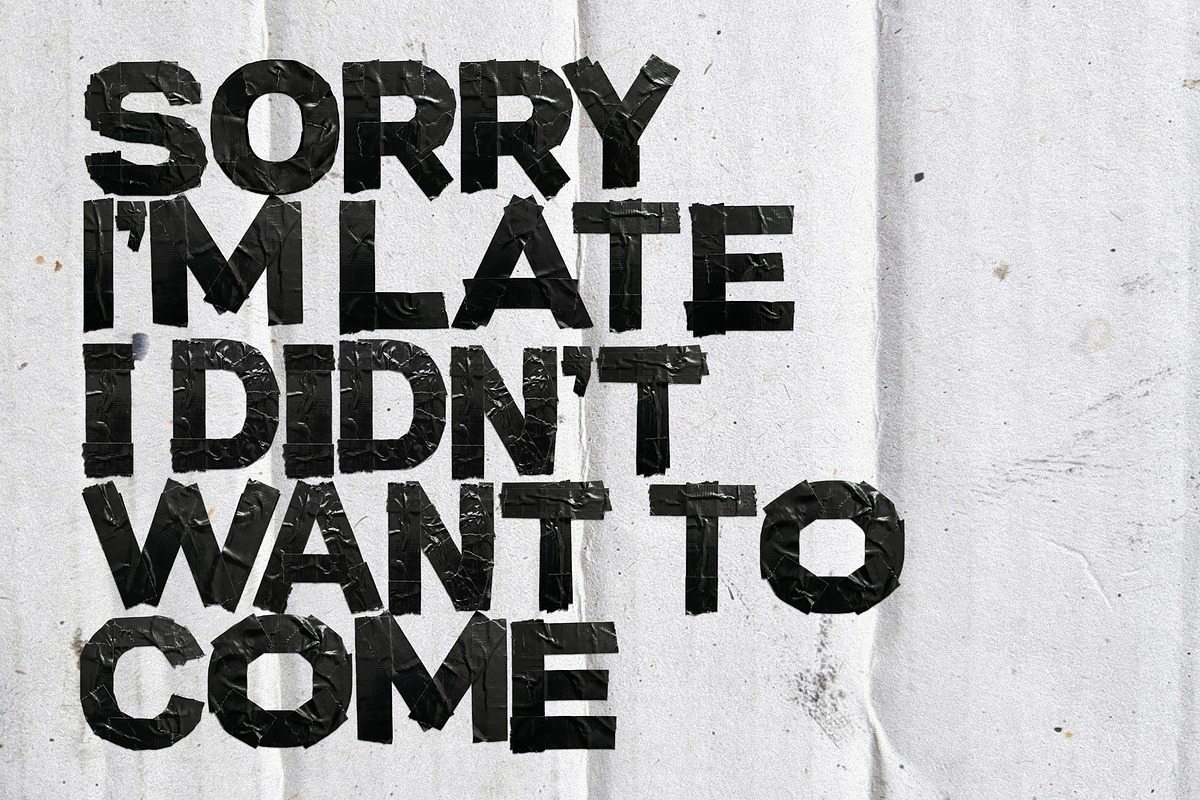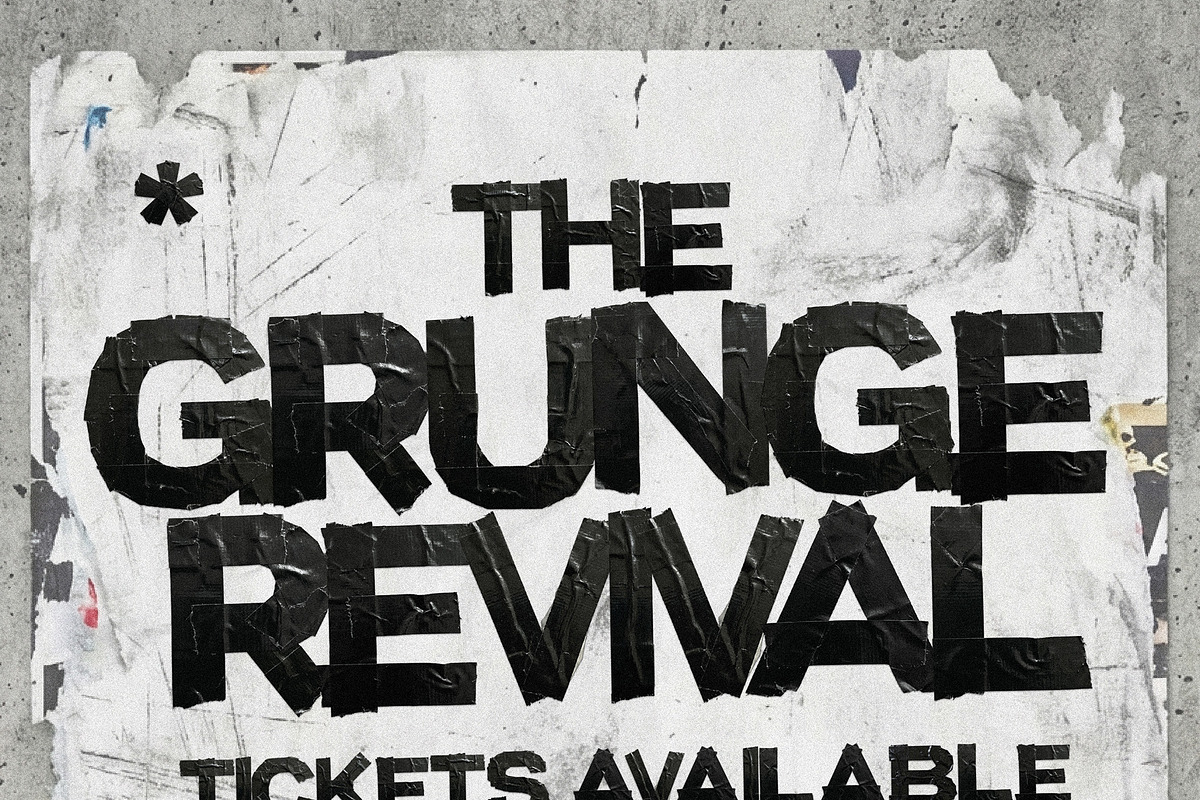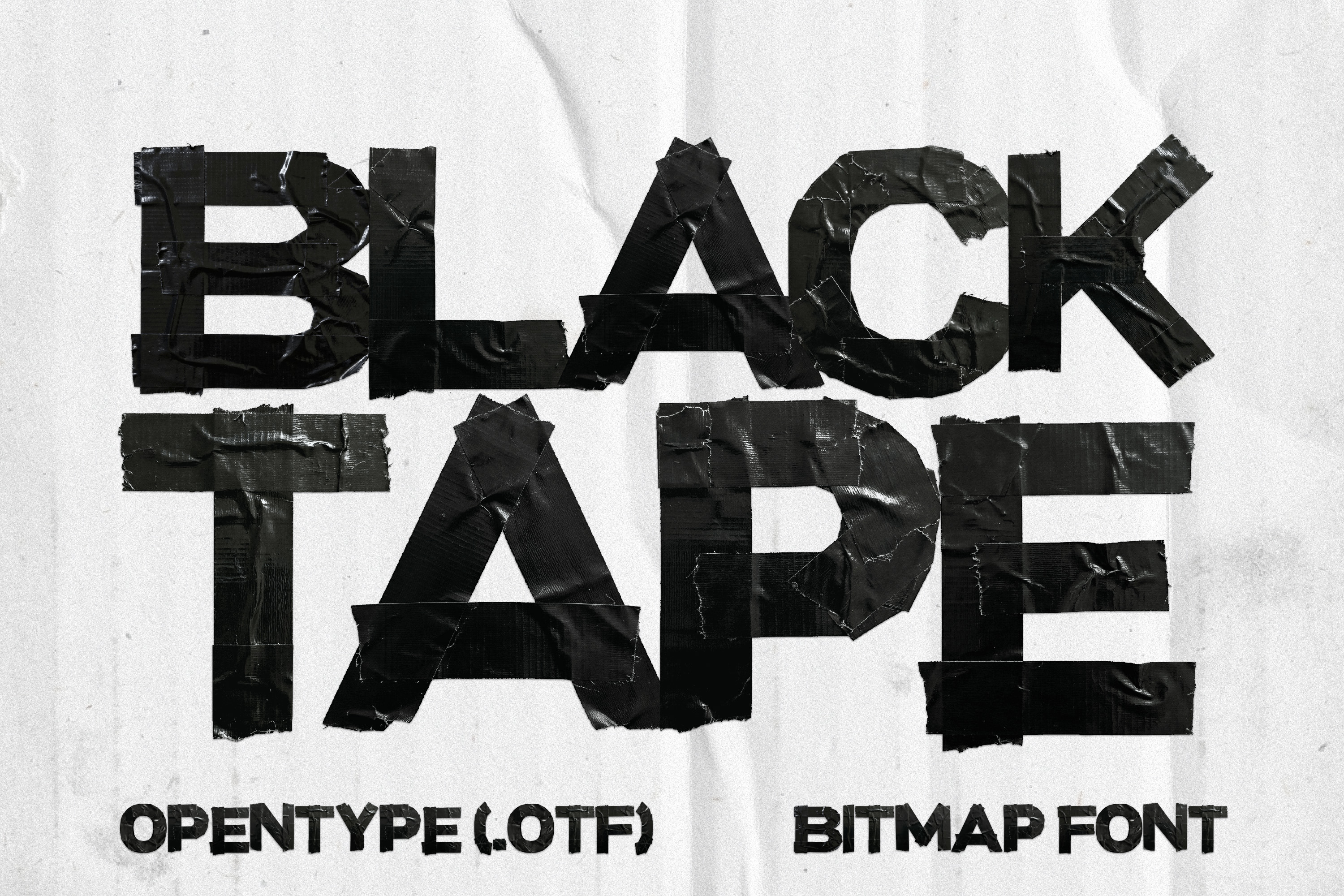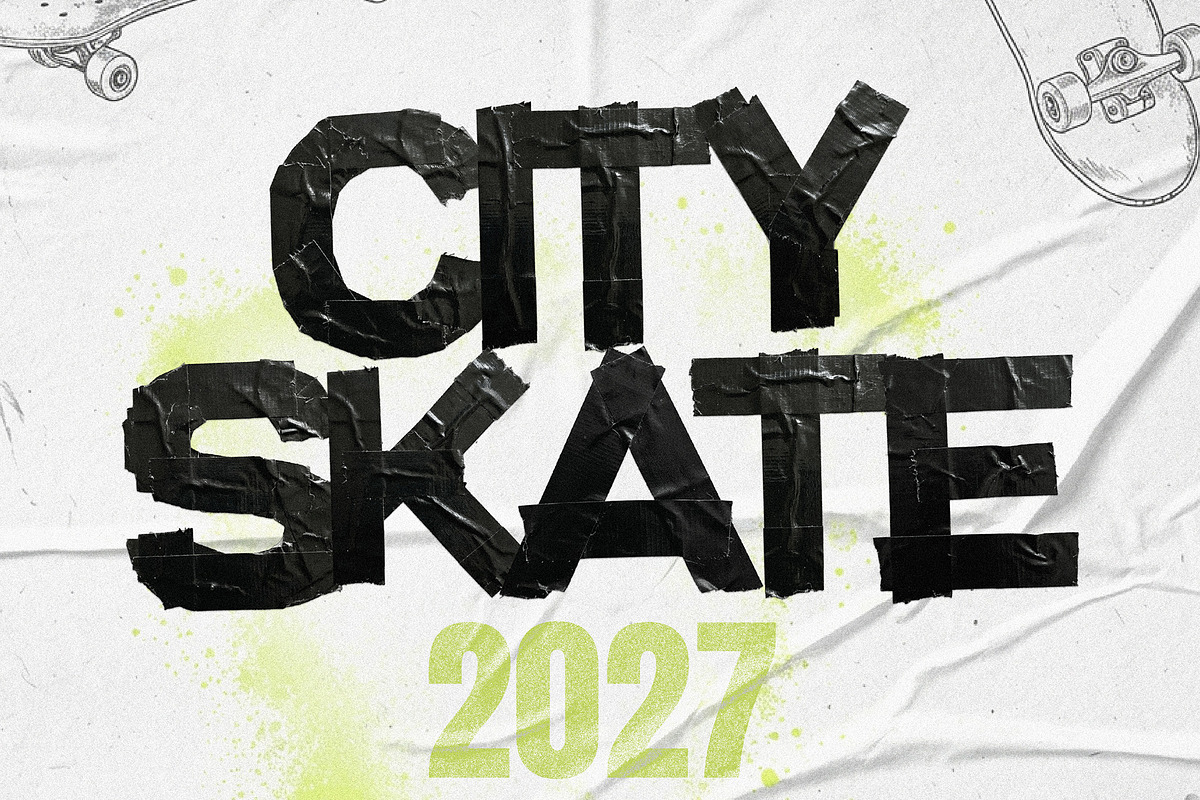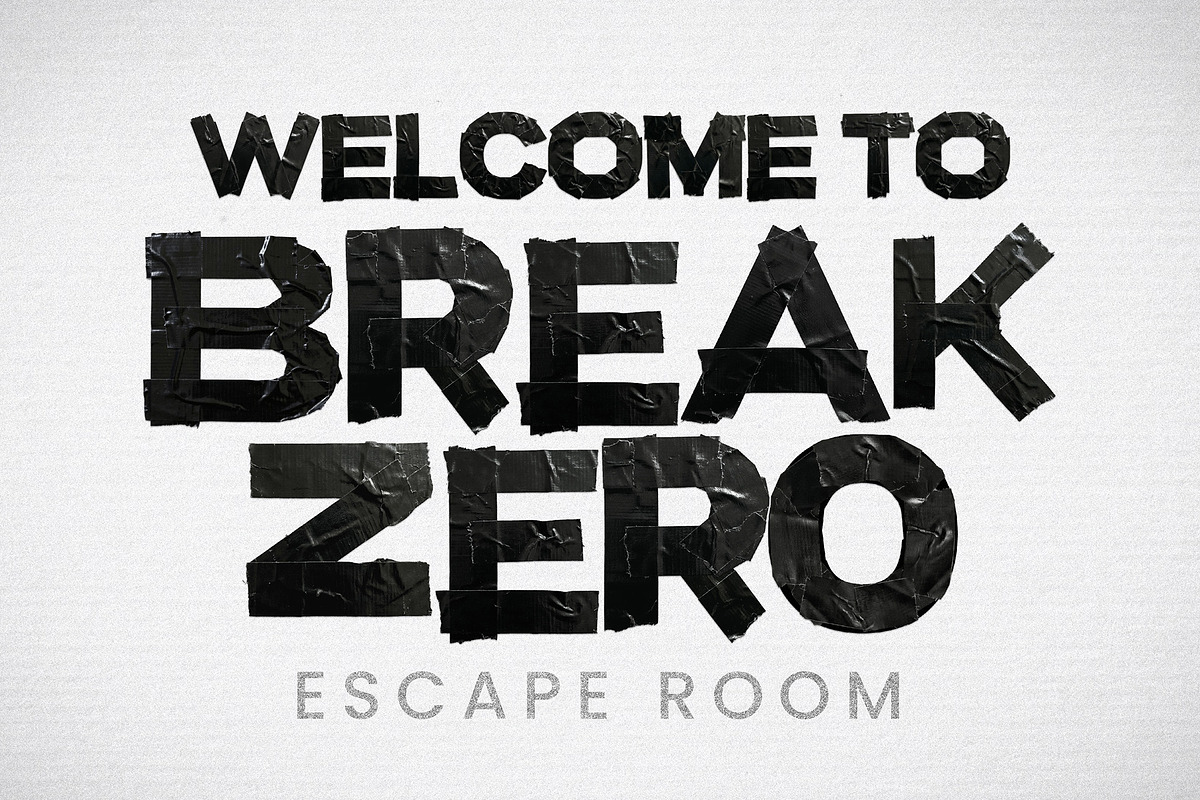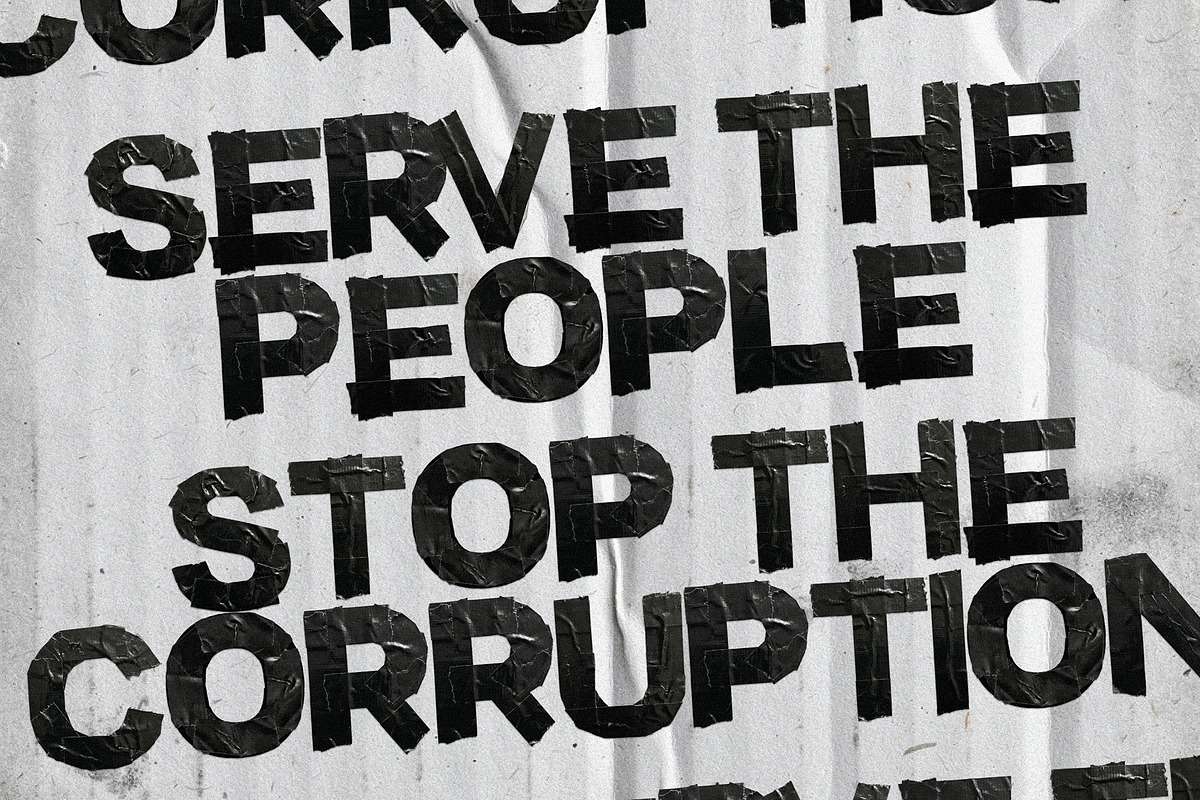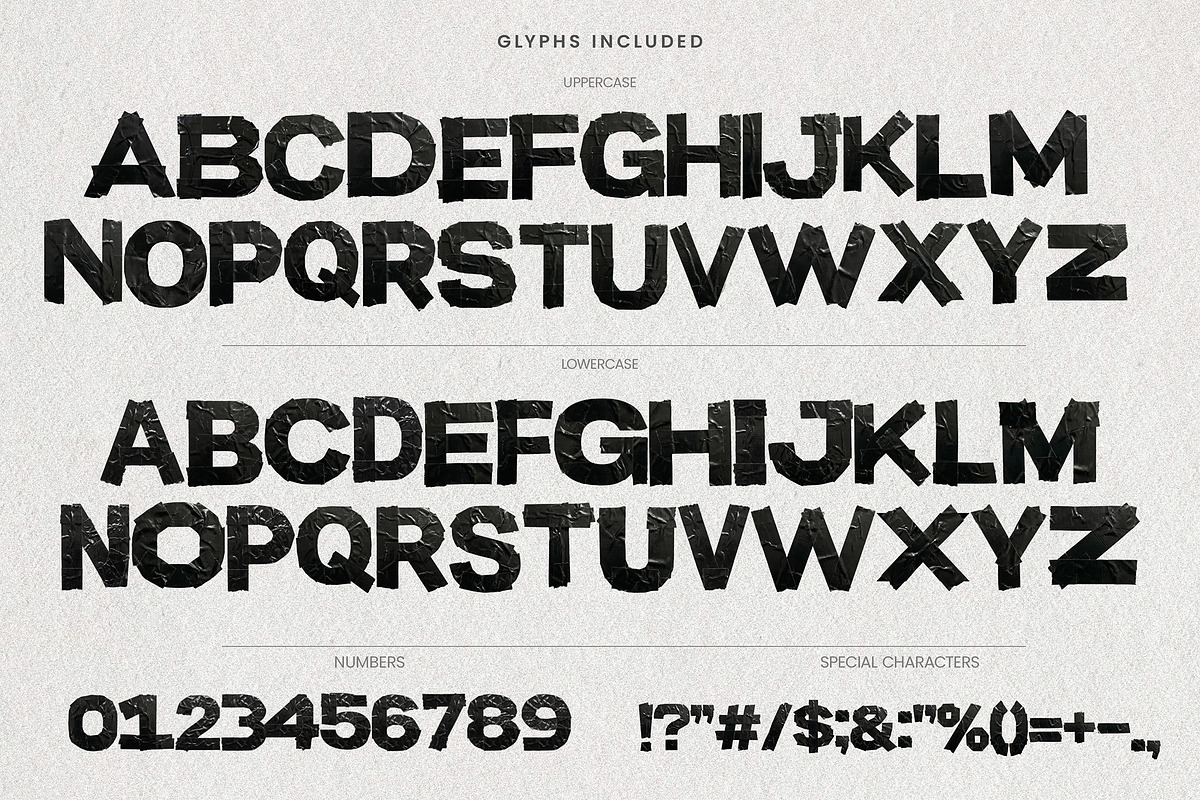
Black Tape - Grunge Bitmap Font
Bring the raw, rebellious energy of the streets into your digital designs with the Black Tape font.
Meticulously crafted from high-resolution scans of actual black electrical tape, every letter captures the unique texture of the material. You get the crinkles, the jagged torn edges, the glossy reflections, and the erratic layering.
Whether you are designing a ransom note-style graphic, a grunge band logo, or an edgy poster, this font delivers that authentic "do it yourself" aesthetic without the sticky mess.
- Protest Art: Design digital flyers and social media squares that mimic the look of hastily taped protest signs.
- Music Festival Branding: Create a gritty, industrial identity for a techno or rock music festival.
- YouTube Thumbnails: Use the bold, heavy weight of the letters to make keywords stand out on "Urban Exploration" or "True Crime" video thumbnails.
- Packaging Design: Give a product a "prototype" or "classified" feel by using the font to label boxes or bottles.